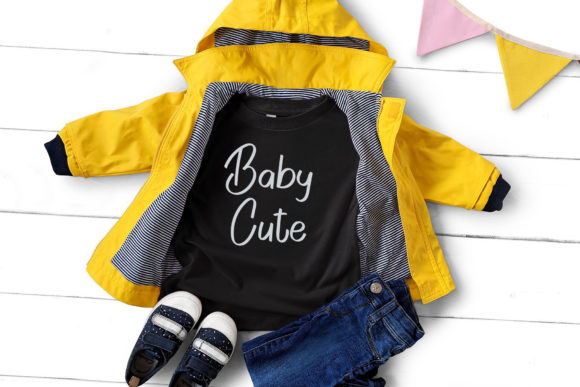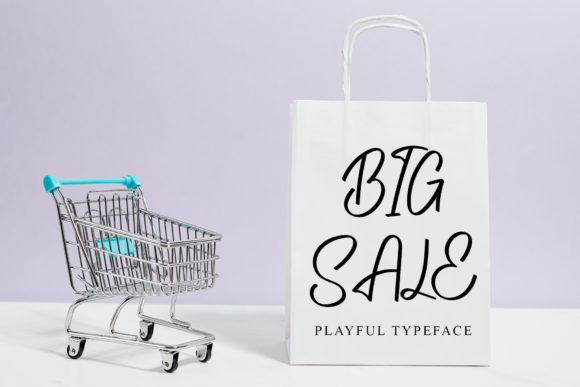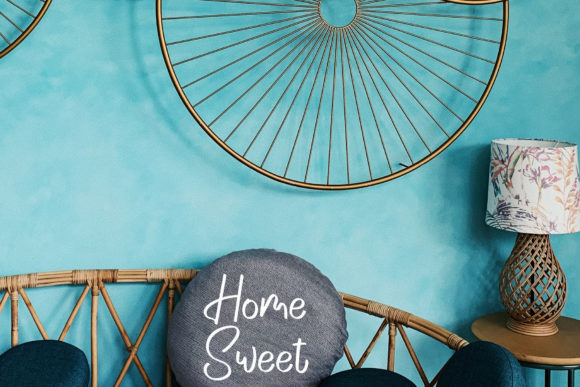
Introduction to Jellita Font
Jellita is a unique and elegant font.
It looks great on wedding invitations, greeting cards, billboards, logos, business cards, and any other design that requires a handwritten touch .
Key Features of Jellita Font
Why Choose Jellita Font?
Jellita Font offers exceptional quality and versatility, making it a valuable addition to your design toolkit. Whether you’re creating for personal projects or commercial use, Jellita Font delivers professional results.